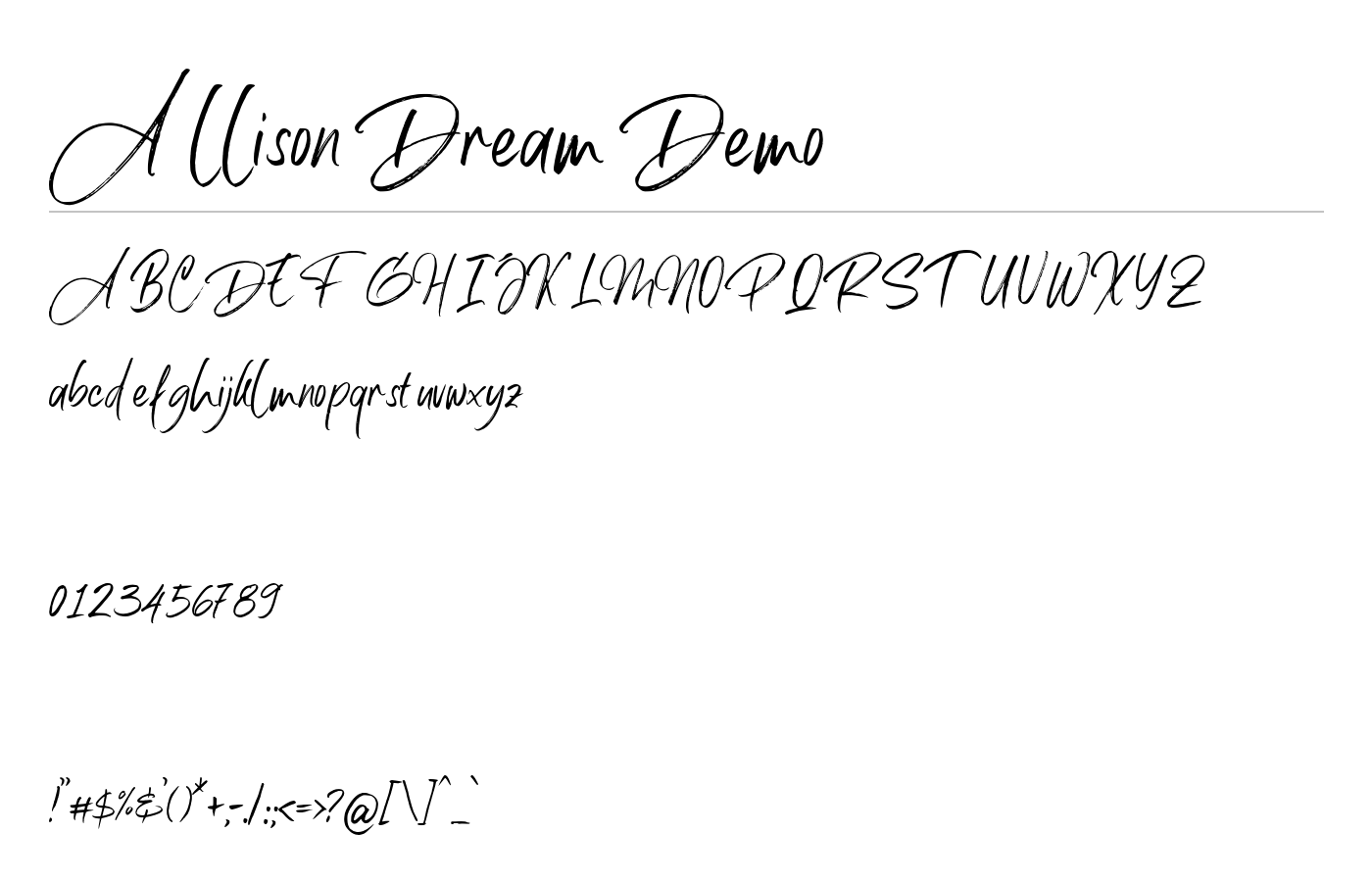
Allison Dream Demo is a delicate, handwritten script font characterized by its elegant, flowing strokes and high contrast between thick and thin lines. It exudes a personal, artistic vibe with its slender, slightly condensed letterforms and refined, brush-like texture, making it perfect for creative branding, invitations, and stylish editorial projects where a touch of sophistication and individuality is desired. This font is best suited for headlines and decorative use rather than body text, delivering a graceful and dreamy aesthetic.
Allison Dream Demo Font
About Allison Dream Demo Font
| Font family | Allison Dream Demo Font |